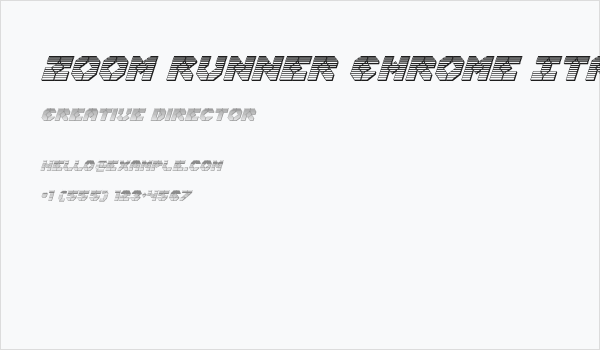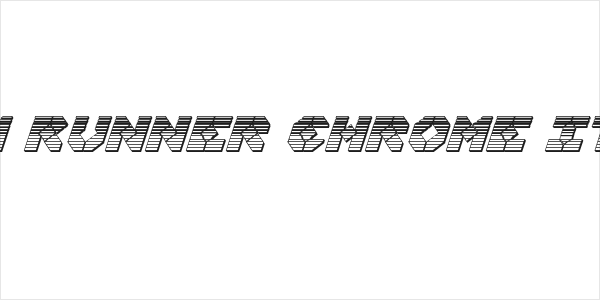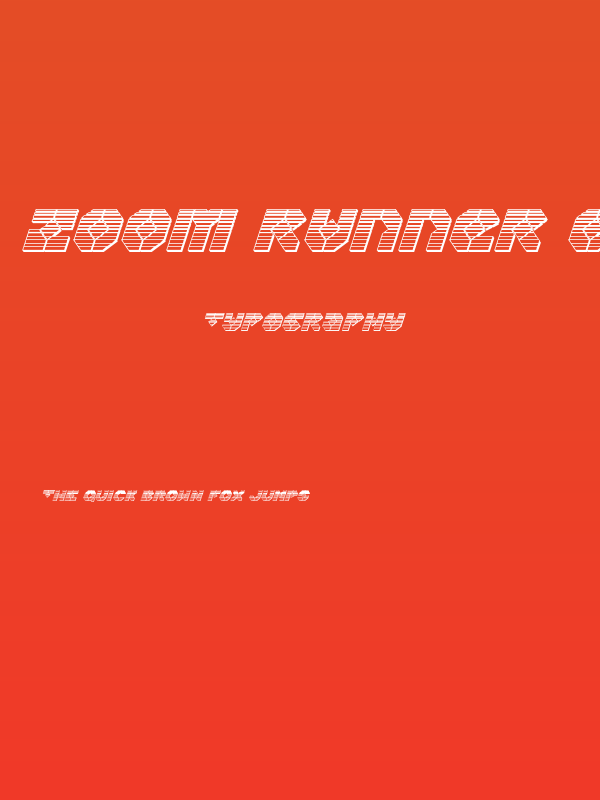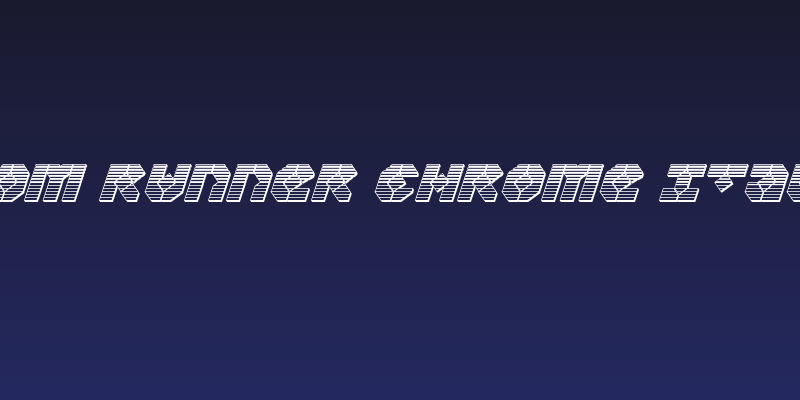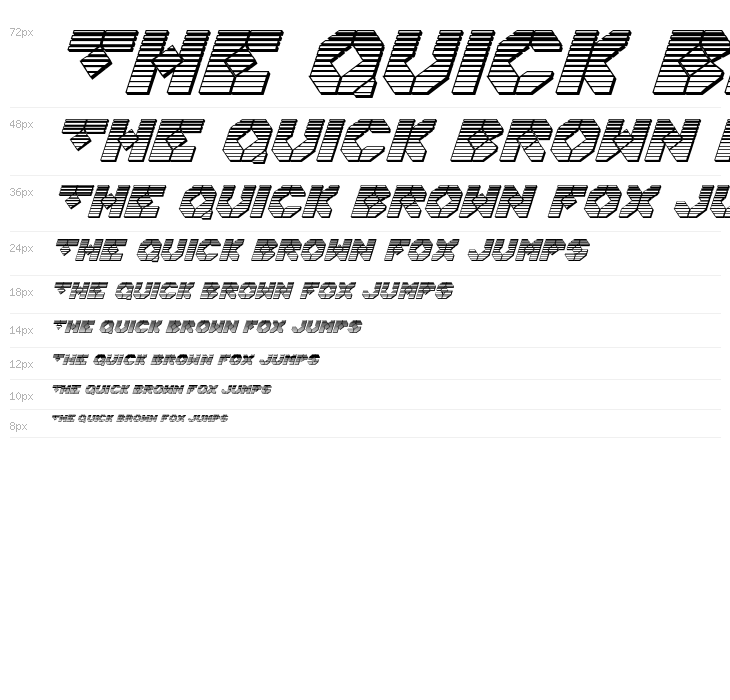
Zoom Runner Chrome Italic Font
Zoom Runner Chrome Italic Description
This font features a bold, futuristic design with a distinct three-dimensional effect created by parallel lines that give each character a sense of depth and movement. The italicized slant adds a dynamic, forward-leaning appearance, enhancing its modern and energetic feel. The uppercase and lowercase letters maintain a consistent style, with sharp angles and geometric shapes that contribute to its tech-inspired aesthetic. Numbers and special characters are equally stylized, ensuring a cohesive look across all text elements. The font's unique structure makes it ideal for projects that require a standout, contemporary look.
| Proposed Projects | Ideal for video game titles, tech company logos, futuristic posters, and digital media branding. |